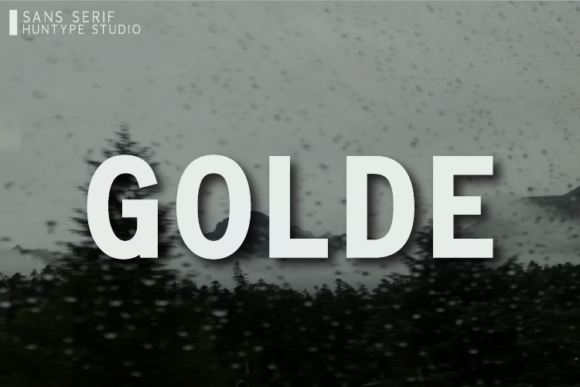
Introducing Golde Font: The Ultimate Sans Serif for Bold and Sophisticated Designs
In the world of typography, a font can make or break a design. For designers and crafters, finding the perfect font that exudes both boldness and sophistication can be a daunting task. However, with the introduction of Golde Font, those days are behind us. This masterfully designed sans serif font is a true must-have for anyone looking to elevate their designs to the next level.
The Perfect Blend of Bold and Sophisticated
Golde Font boasts a unique combination of chunky and extended characters that instantly grab attention. Its bold yet refined aesthetic makes it an ideal choice for a wide range of design applications, including logos, branding, packaging design, and more. Whether you’re working on a corporate identity project or a personal craft, Golde Font is sure to make a lasting impression.
Key Features of Golde Font
- Chunky and Extended Characters: Golde Font’s distinctive characters are designed to make a statement. Their chunky and extended features ensure that your text stands out from the crowd, making it perfect for headlines, titles, and emphasis.
- Sans Serif Design: The clean and minimalist sans serif design of Golde Font ensures that your text remains clear and legible, even at smaller sizes. This makes it an excellent choice for body text, as well as display text.
- Bold yet Sophisticated: Golde Font strikes the perfect balance between boldness and sophistication. Its refined aesthetic ensures that your designs look professional and polished, while its bold features keep them engaging and attention-grabbing.
- Versatile: Golde Font is incredibly versatile, making it suitable for a wide range of design applications. From logos and branding to packaging design and more, this font is sure to become a staple in your design toolkit.
Why Designers and Crafters Love Golde Font
So, why are designers and crafters raving about Golde Font? Here are just a few reasons:
- Easy to Read: Despite its bold features, Golde Font remains easy to read, even at smaller sizes. This makes it perfect for designs that require a clear and concise message.
- Highly Customizable: Golde Font is designed to be highly customizable, allowing you to tailor it to your specific design needs. Experiment with different colors, sizes, and styles to create a unique look that reflects your brand or personal style.
- Time-Saving: With Golde Font, you can create professional-looking designs in no time. Its pre-designed characters and clean aesthetic save you time and effort, allowing you to focus on the creative aspects of your project.
How to Use Golde Font in Your Designs
Ready to incorporate Golde Font into your designs? Here are a few tips to get you started:
- Pair it with Other Fonts: Experiment with pairing Golde Font with other fonts to create a unique and visually appealing combination. Try pairing it with a serif font for a classic look or with another sans serif font for a modern aesthetic.
- Use it for Headlines: Golde Font’s bold features make it perfect for headlines and titles. Use it to grab attention and draw emphasis to key messages.
- Experiment with Colors: Golde Font looks stunning in a variety of colors. Experiment with different hues and shades to find the perfect color scheme for your design.
In conclusion, Golde Font is a game-changing sans serif font that is sure to elevate your designs to the next level. Its unique combination of bold and sophisticated features makes it perfect for a wide range of design applications, from logos and branding to packaging design and more. With its ease of use, high customizability, and time-saving features, Golde Font is a must-have for designers and crafters looking to create professional-looking designs with ease.